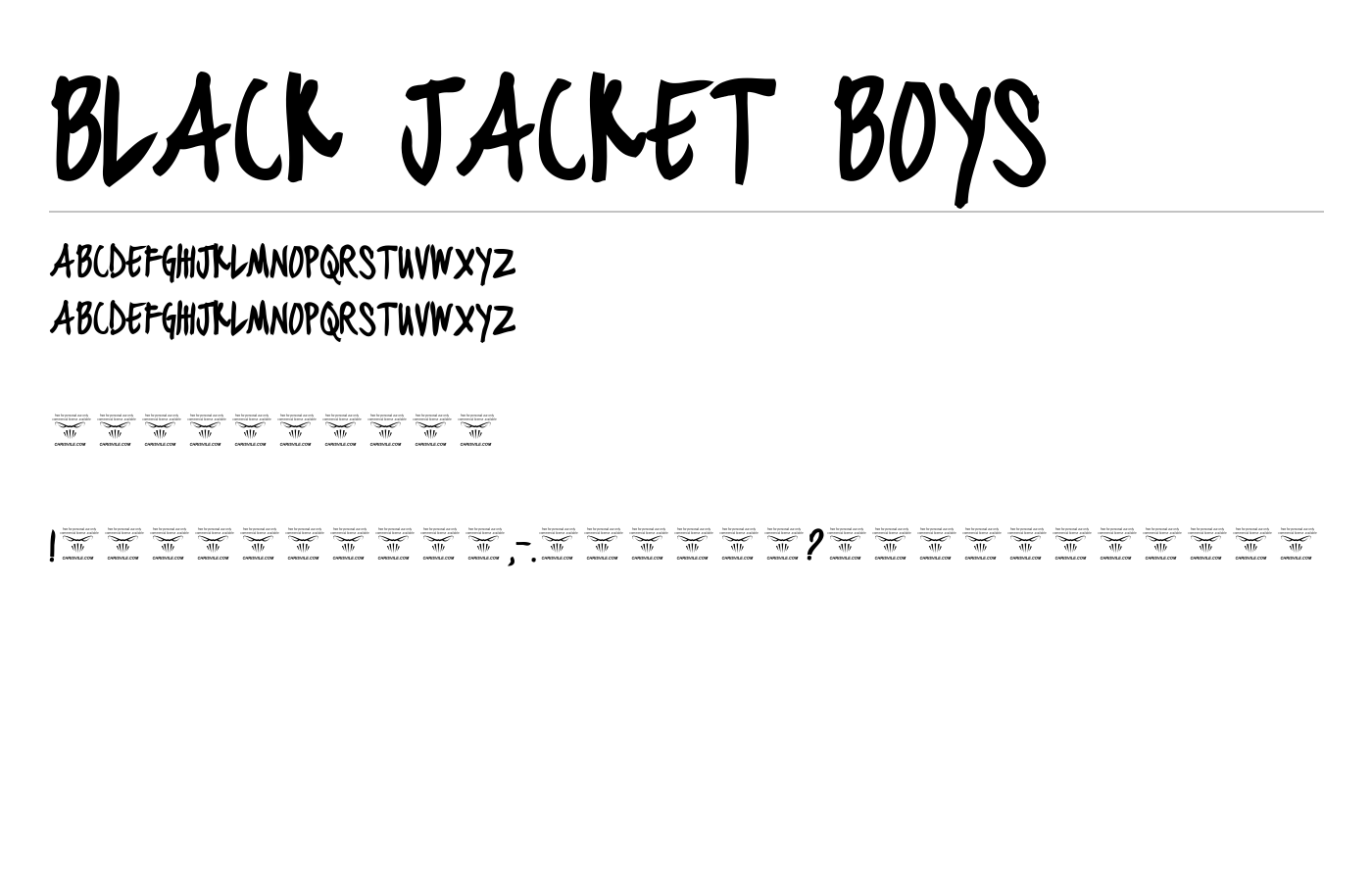
Black Jacket Boys is a bold, hand-drawn display font with an energetic and quirky personality. Its uneven, brush-like strokes and playful letter shapes give it a casual, youthful vibe perfect for creative projects, posters, informal branding, and headlines that need a dynamic, expressive touch. This font works best when you want to add a fun, urban edge without sacrificing legibility.
black jacket boys Font
About black jacket boys Font
| Designer | Chris Vile |